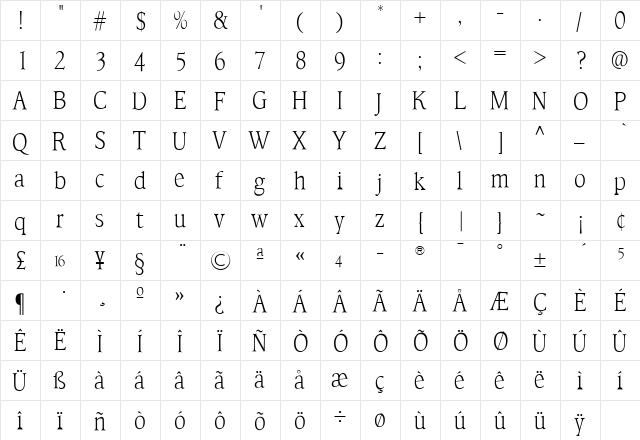
TFHabitatCond Regular
| Foundry | Joseph Treacy. V. ; . . by Joseph Treacy, Treacyfaces,Inc |
| Year | 1986 |
Design Context for TFHabitatCond Typeface
TFHabitatCond takes a measured approach to typography — its balanced proportions and neutral character make it a reliable workhorse for both digital and print work. Its narrow stance lets it pack a punch even in space-constrained designs.